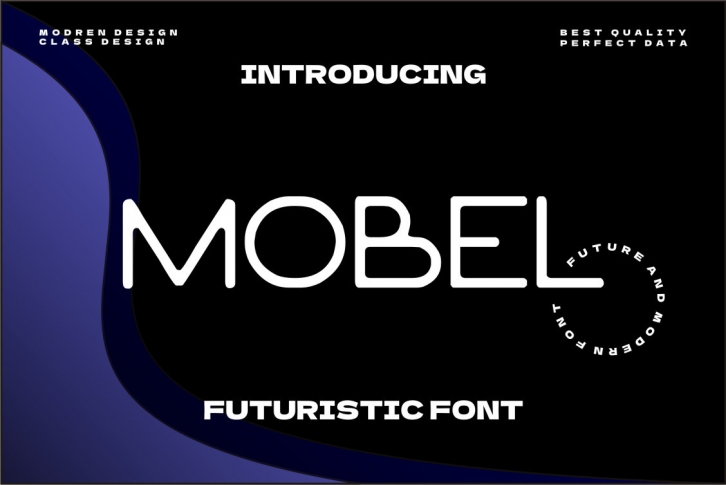
Mobel is a cool and vintage styled sans serif font. It can easily be matched to an incredibly large set of projects, so add it to your creative ideas and notice how it makes them stand out!